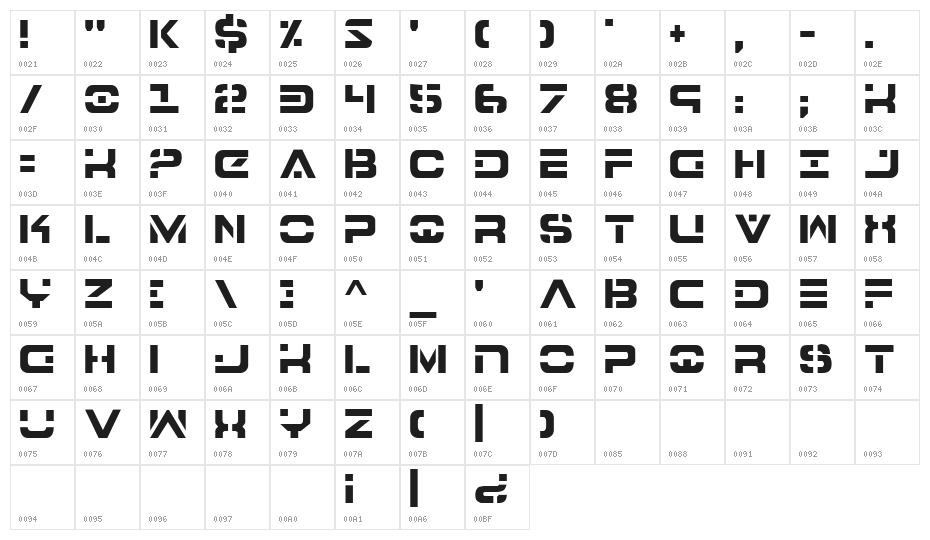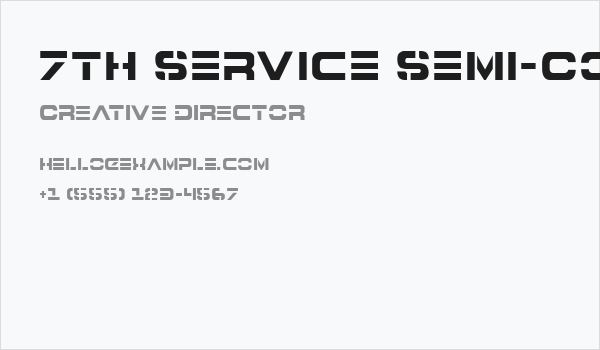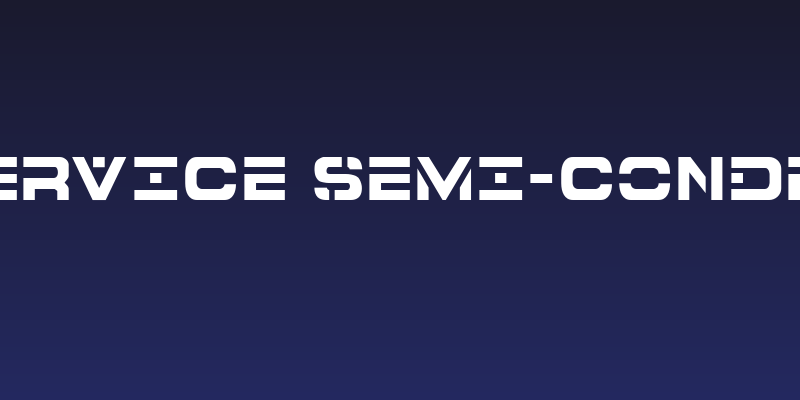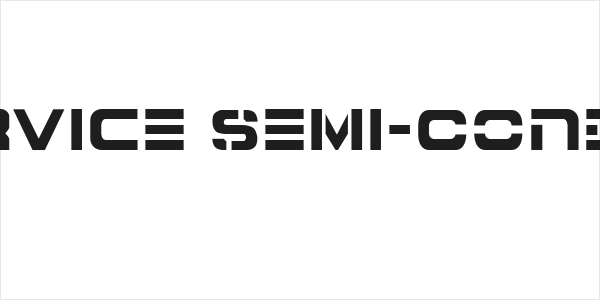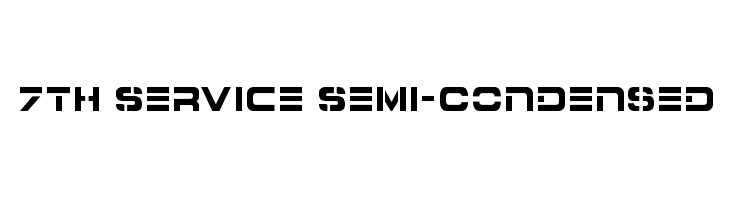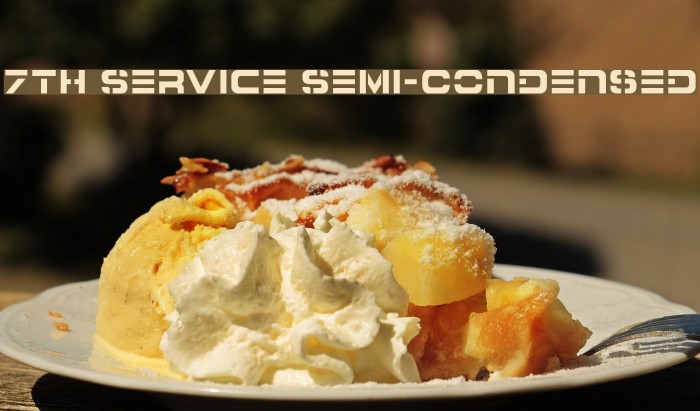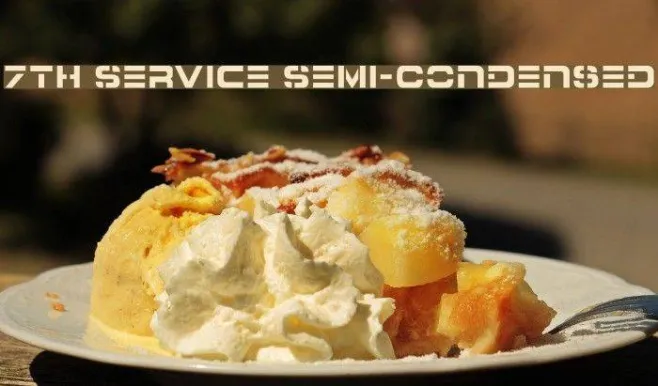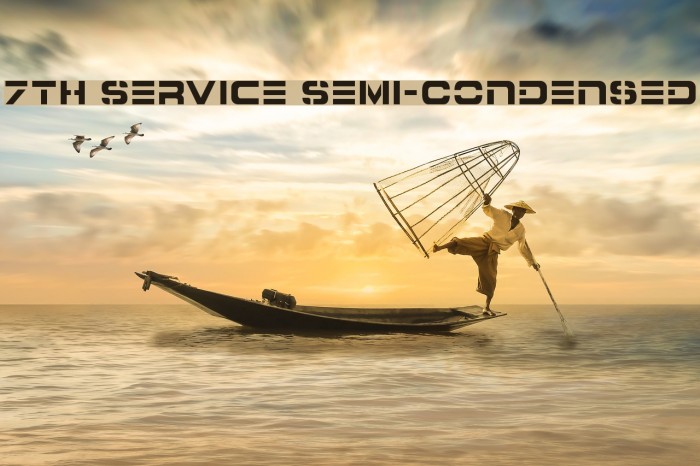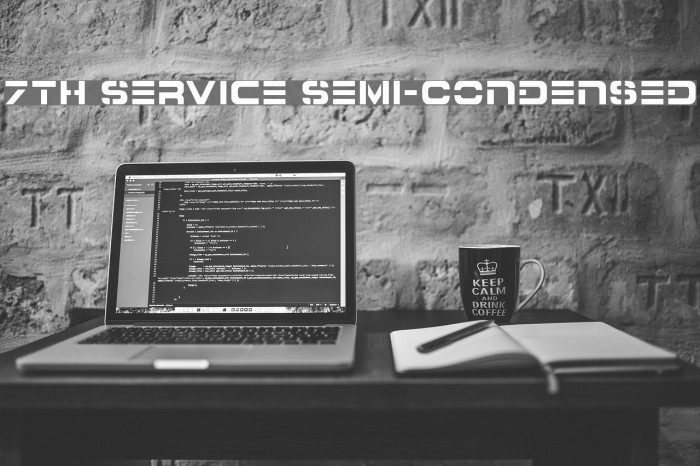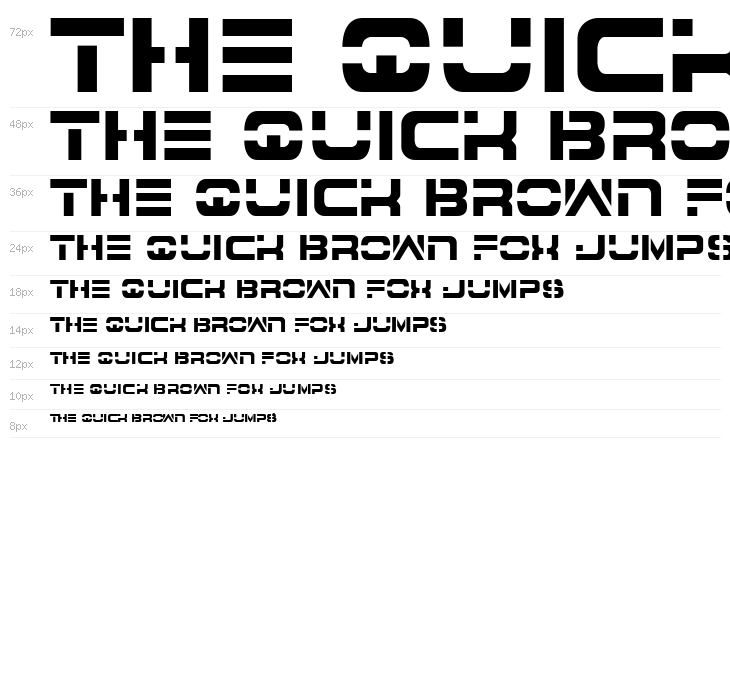
7th Service Semi-Condensed Font
7th Service Semi-Condensed Description
This font features a bold, geometric design with a semi-condensed width. The characters are constructed with a modern, industrial aesthetic, incorporating sharp angles and distinct cutouts that create a sense of movement and energy. The uppercase and lowercase letters maintain a consistent style, with the lowercase mirroring the uppercase in form and structure. The numerals and special characters follow the same design principles, ensuring uniformity across all glyphs. This font's unique style makes it stand out, offering a futuristic and technical feel suitable for various creative applications.